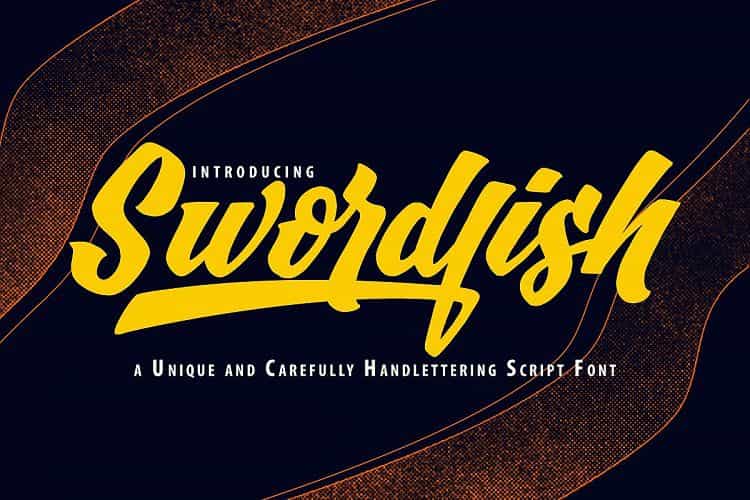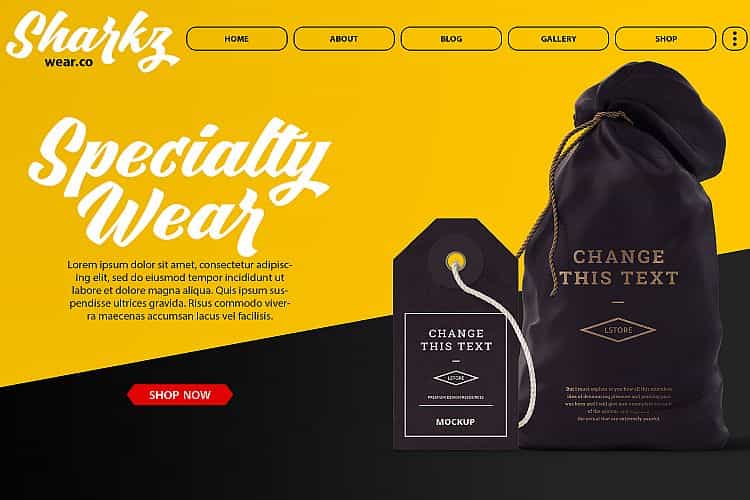
SwordFish Font with a calligraphy style, so elegant on invitation like greeting cards, branding materials, business cards, quotes posters and more! The alternative characters were classified into different Open Type features, for example Stylistic Sets, Stylistic Alternates, Contextual Alternate , SWASH and Ligature.